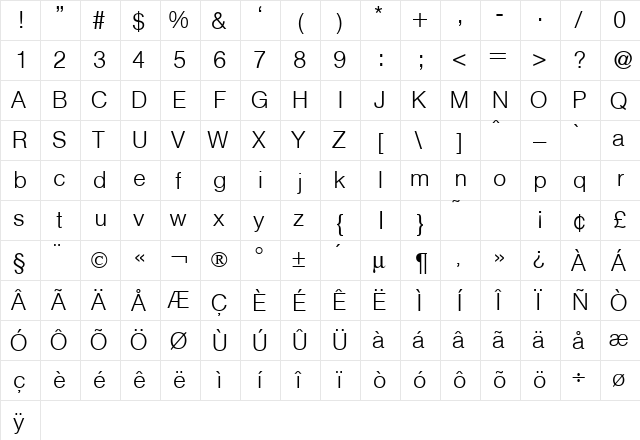
HelbaLightDB Normal
Design Context for HelbaLightDB Typeface
HelbaLightDB takes a measured approach to typography — its balanced proportions and neutral character make it a reliable workhorse for both digital and print work. Its slender proportions lend an understated elegance to any composition.